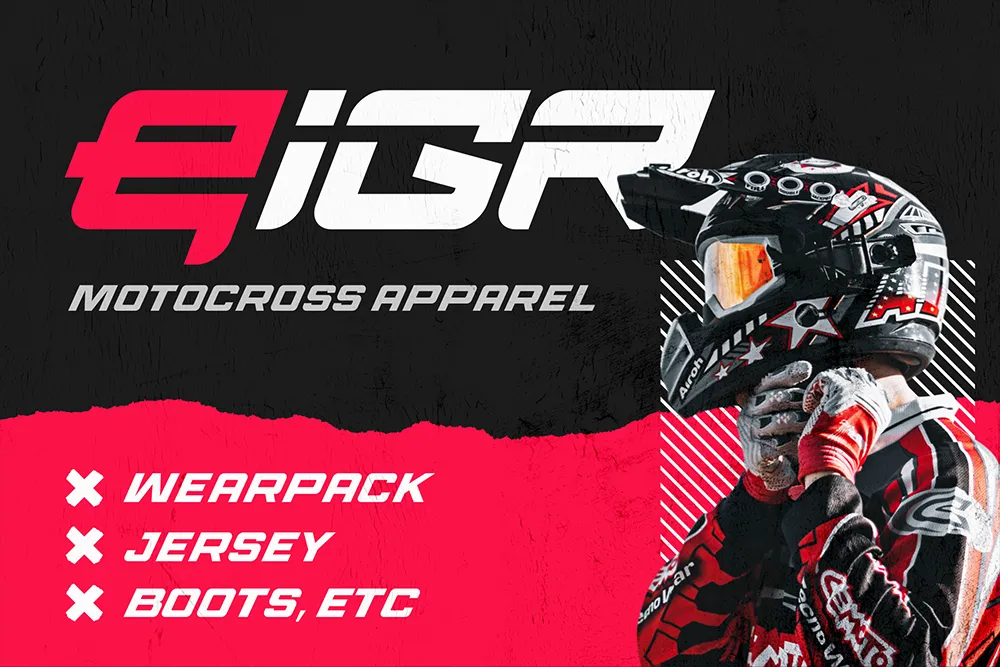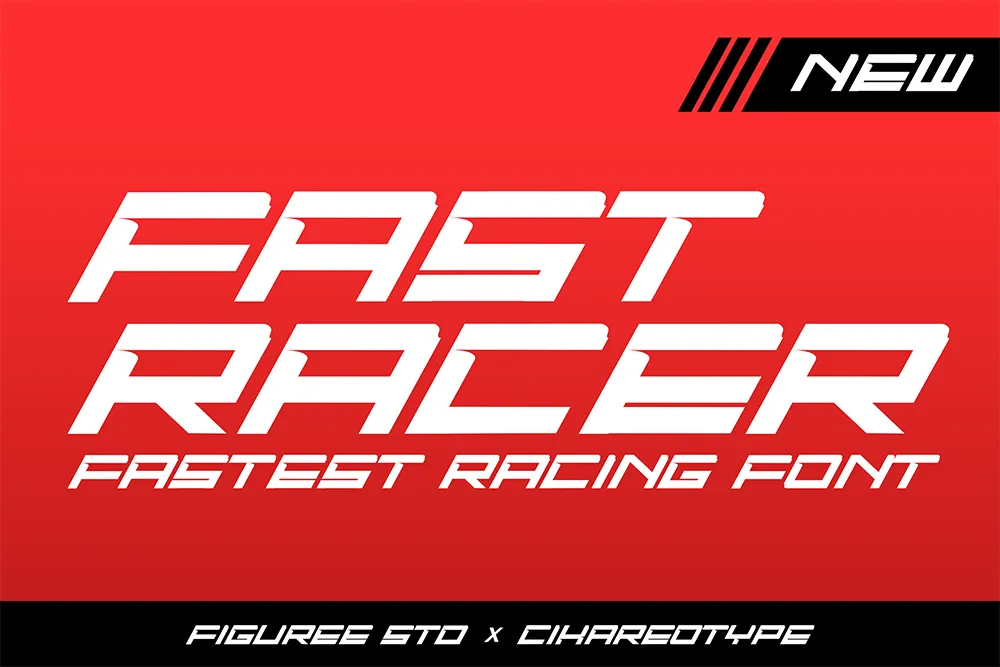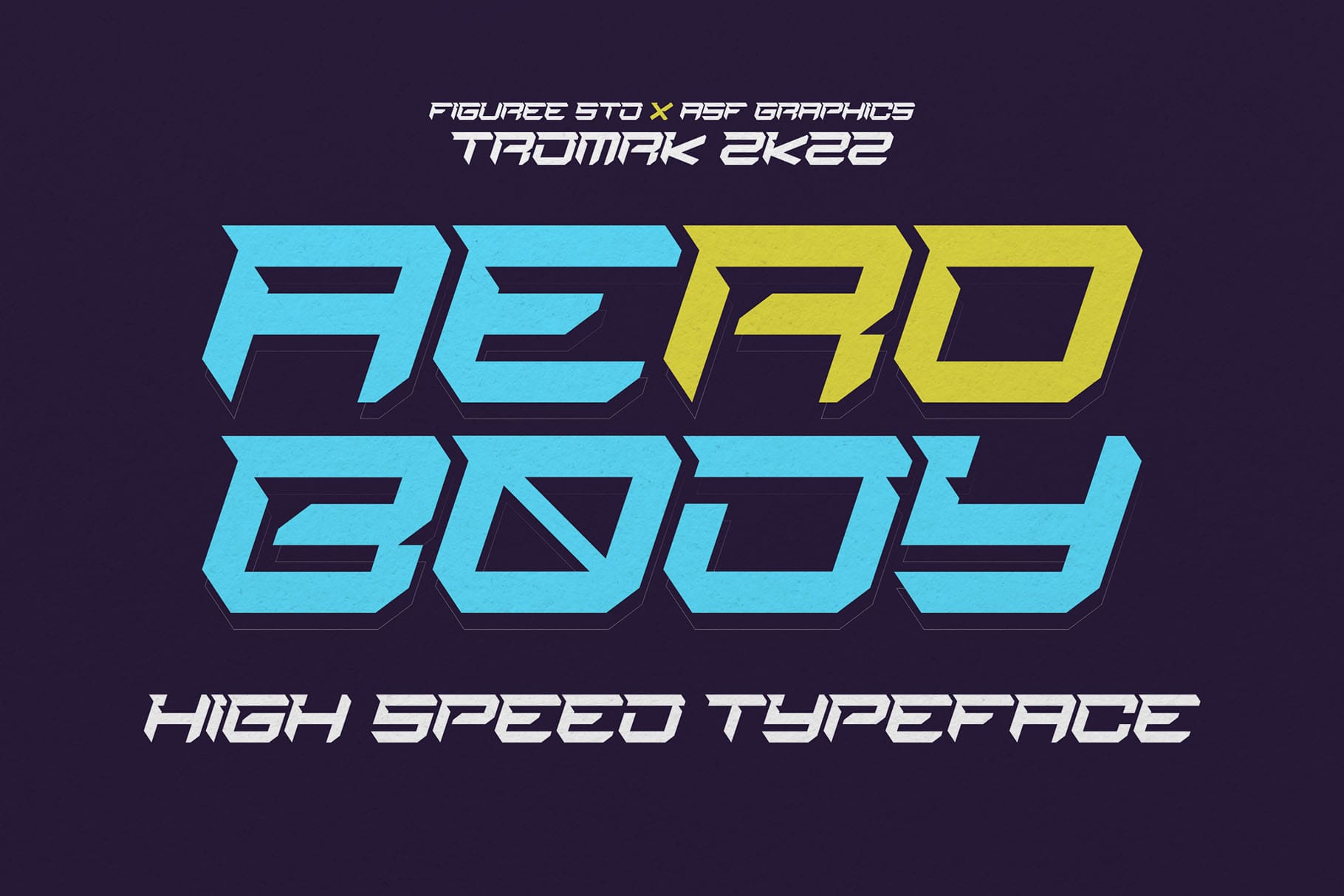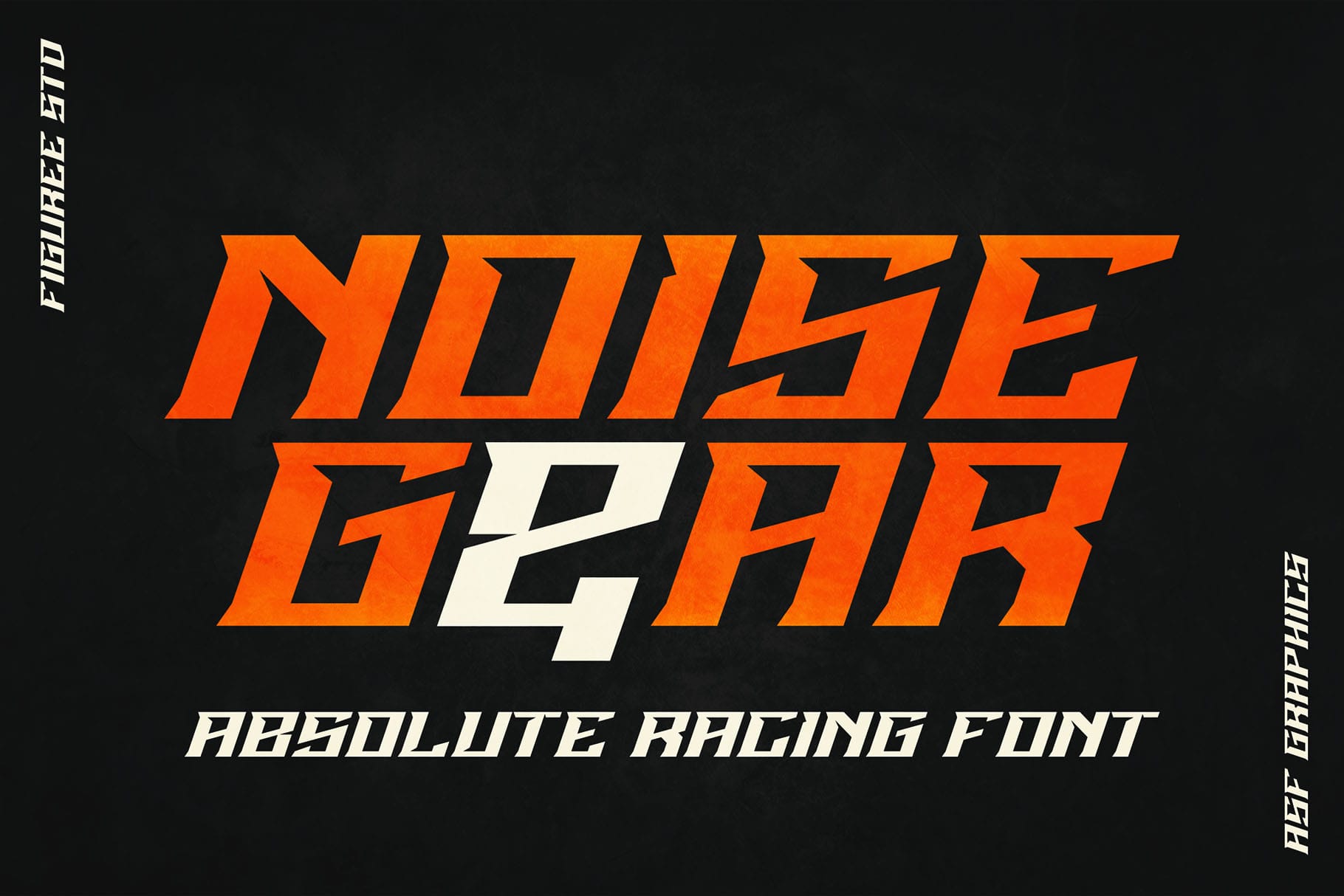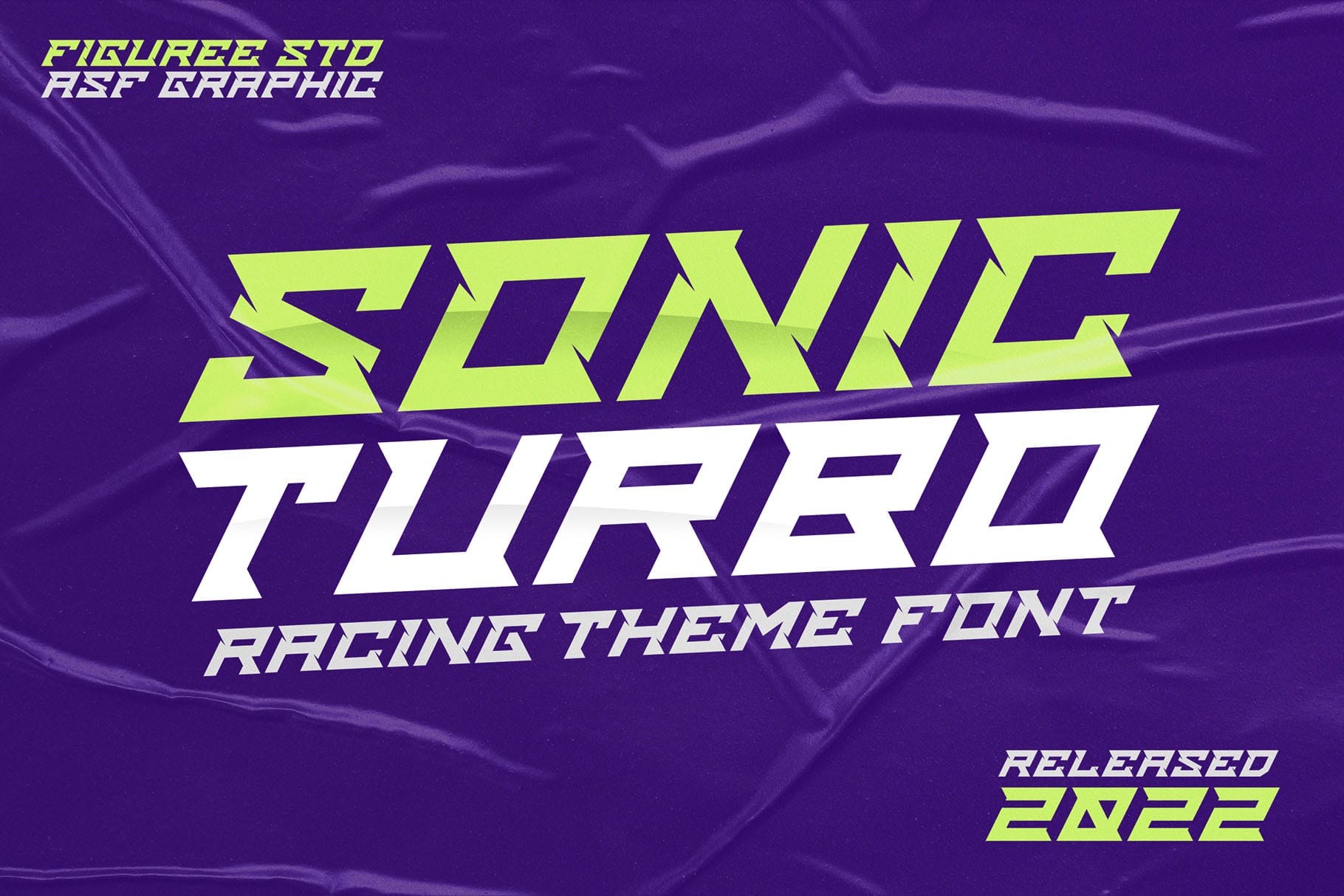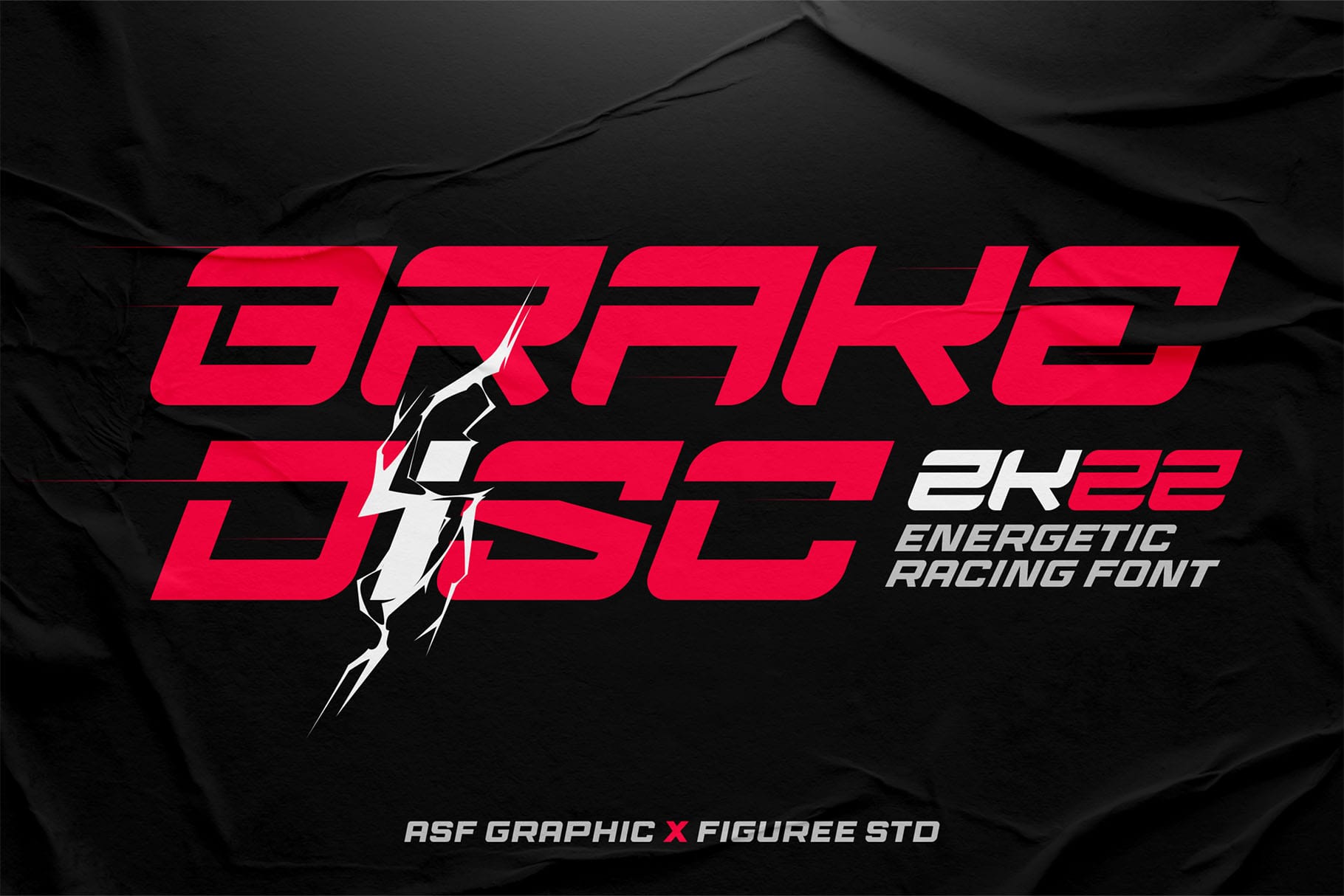
10 Epic Sport and Racing Fonts to Supercharge Designs
Motocross-themed promotional graphic featuring a bold logo reading "eigr" with the tagline "Motocross Apparel." A motocross rider in full gear, including a helmet and gloves, is shown on the right. Text on the left lists gear items: wearpack, jersey, boots, etc., with a red and black grunge-style background.
The EIGR logo design uses a bold, futuristic sports font that conveys power, speed, and the adrenaline of motocross—making the brand stand out and instantly recognizable in the extreme sports apparel industry.
In the fast-paced world of sports, motorsports, and esports, visual impact is everything. Whether you’re designing a motocross jersey, an esports logo, or a racing poster, the right sport font or racing font can instantly add speed, energy, and adrenaline to your design. To help you stand out, we’ve handpicked 10 powerful racing and sport fonts from Figuree Studio that bring boldness and motion to every project.
Why Fonts Matter in Sport & Racing Design
Fonts aren’t just letters—they’re the visual voice of your brand or event. In sports, the right typography can communicate action, speed, strength, and competition. Whether you’re building a gaming interface, a fitness label, or an auto-themed merch design, using a high-energy sport font builds the right atmosphere and emotional pull for your audience.
The Top 10 Sport & Racing Fonts
1. Quinoss – Modern Sport Font
A promotional graphic for the "QUINOSS" sport display font, featuring bold, futuristic typography with stylistic alternates and ligature substitutions. The background has a gradient of purple, blue, pink, and orange tones, giving a dynamic and energetic feel. The font is described as available in uppercase and lowercase, regular and italic styles, created by Figuree X ASF for a 2025 project.
Quinoss – A bold and futuristic sport display font, featuring stylistic alternates, ligature substitutions, and versatile styles for dynamic design work.
Quinoss is an absolute go-to for fitness, racing, or esports branding. With its dynamic angles and bold lines, it captures motion and clarity in a sleek, unified design. Ideal for:
• Esport team logos
• Athletic gear branding
• Fitness product packaging
💡 Use Quinoss on gym logos or sports event posters for maximum impact.
2. Nighty Racer – Futuristic Racing Font
A bold and colorful promotional image for the "Nighty Racer" futuristic racing font. The design features a retro-futuristic style with large, angular letters in vibrant cyan and white, outlined in pink. The background is dark, enhancing the neon-like color contrast. The text includes "Introducing Nighty Racer" and "Futuristic Racing Font," with a credit line
Nighty Racer – A high-impact, futuristic racing font, blending retro arcade aesthetics with bold, angular letterforms for dynamic and high-speed visual design
Nighty Racer screams aerodynamic motion. Inspired by speed and high-tech performance, it features elongated forms that evoke movement.
Perfect for:
• Racing games UI
• Car wraps or event banners
• Futuristic esports visuals
✅ Pro tip: Combine Nighty Racer with glowing effects for high-tech branding.
3. Aerobody – Highspeed Racing Font
A bold promotional graphic showcasing the "Aero Body" typeface, labeled as a "High Speed Typeface." The font features angular, futuristic letterforms in vibrant cyan and yellow against a dark purple background. The title text "AERO BODY" is large and dynamic, with sharp edges and a fast, aggressive look
Aero Body – A high-speed, futuristic typeface, designed for bold, energetic visuals with a sharp, angular aesthetic perfect for motorsport, gaming, and tech-forward branding.
Need raw speed? Aerobody delivers. With sharp lines and high contrast, this font is made for adrenaline-fueled design.
Use it for:
• Jersey numbers
• Drag racing flyers
• Auto parts branding
💥 Pair Aerobody with red & black color schemes for fierce racing aesthetics.
4. Noise Gear – Absolute Racing Font
A bold typographic poster showcasing the "Noise Gear" typeface, labeled as an "Absolute Racing Font." The main text "NOISE GEAR" is displayed in large, angular letters with a gradient orange color, except the number "2" which is white, creating a visual impact. The background is black with grunge texture, and the credits “FIGUREE STD” and “ASF GRAPHICS” appear vertically on the left and right sides of the image.
Noise Gear – A striking racing-inspired font from Figuree Studio and ASF Graphics. Designed for high-octane visuals, the font features sharp, angular forms and intense color contrasts, making it perfect for motorsports branding, action graphics, and dynamic typography.
Noise Gear is built for visual aggression. Its solid structure makes it perfect for team branding or race promotions.